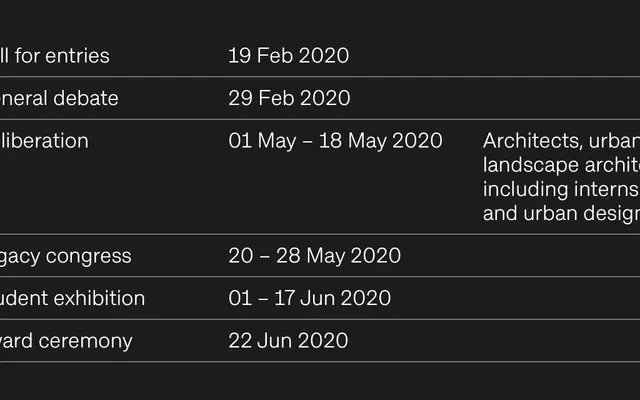
A modern reinterpretation of early grotesques with a distinctive 'elbow pipe' terminal detail running across many characters, available in eight weights with matching italics.
Built on the bones of nineteenth-century grotesque tradition, the design introduces a recurring 'elbow pipe' shape in letters such as a, f, j, t, R, Q and 1, giving the family a consistent mechanical character. Sixteen styles span Light through UltraBlack with matching italics throughout. Synthetic punctuation and quotes sharpen the contemporary feel without breaking the familiar grotesque rhythm.
A low-contrast sans-serif in the tradition of early grotesques, with utilitarian construction and mechanical details. The distinctive 'elbow pipe' terminals align it closely with nineteenth-century grotesque models while the synthetic punctuation adds a contemporary edge.